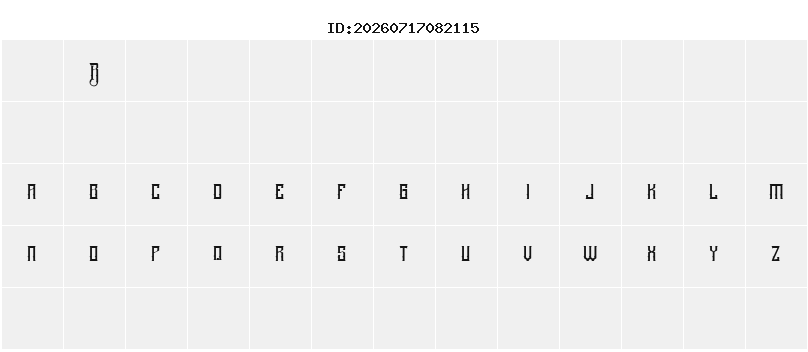
• Font Name: Brck
• Font ID: swistblnk: Brck: 2014
• Full Font Name: Brck
• Version: Version 2.7
• PostScript Name: Brck
• Character Count: 30
• Designer: swistblnk
• Manufacturer: swistblnk
Brck.ttf is a modern, elegant sans-serif font designed for ultimate readability and visual harmony. Perfect for branding, headlines, web design, and print materials.